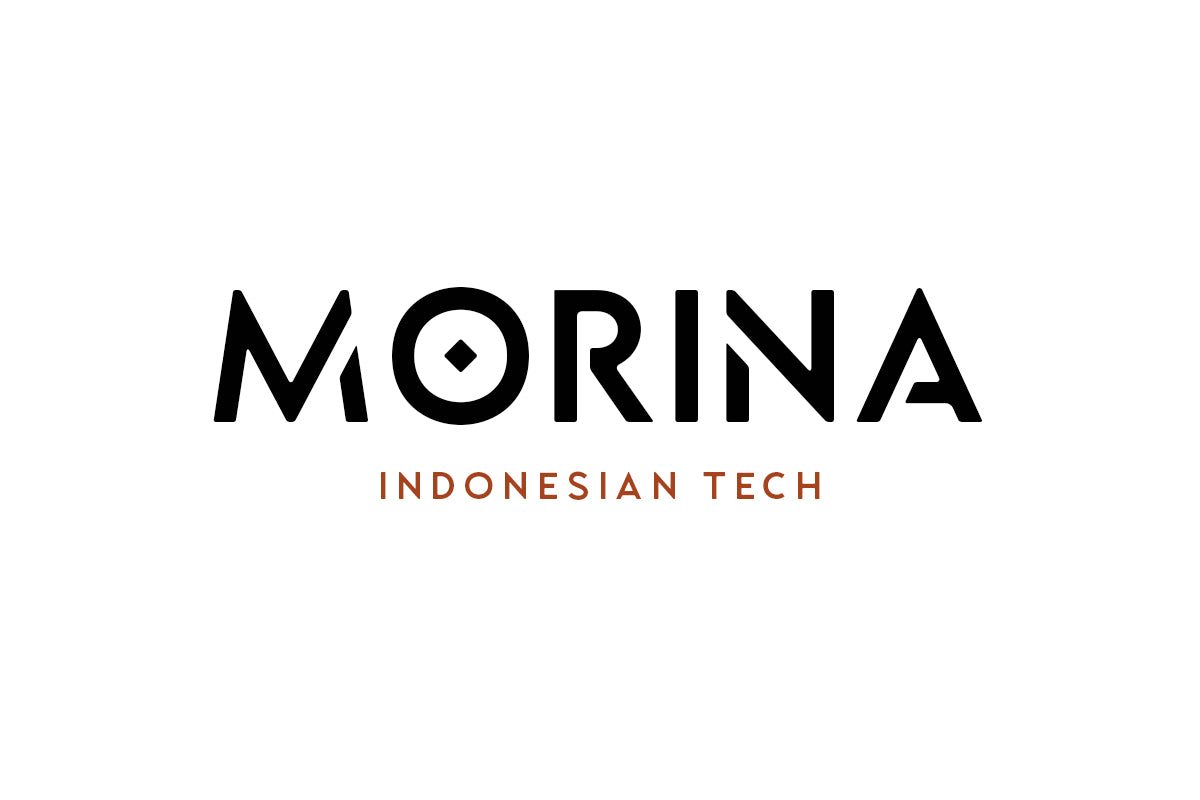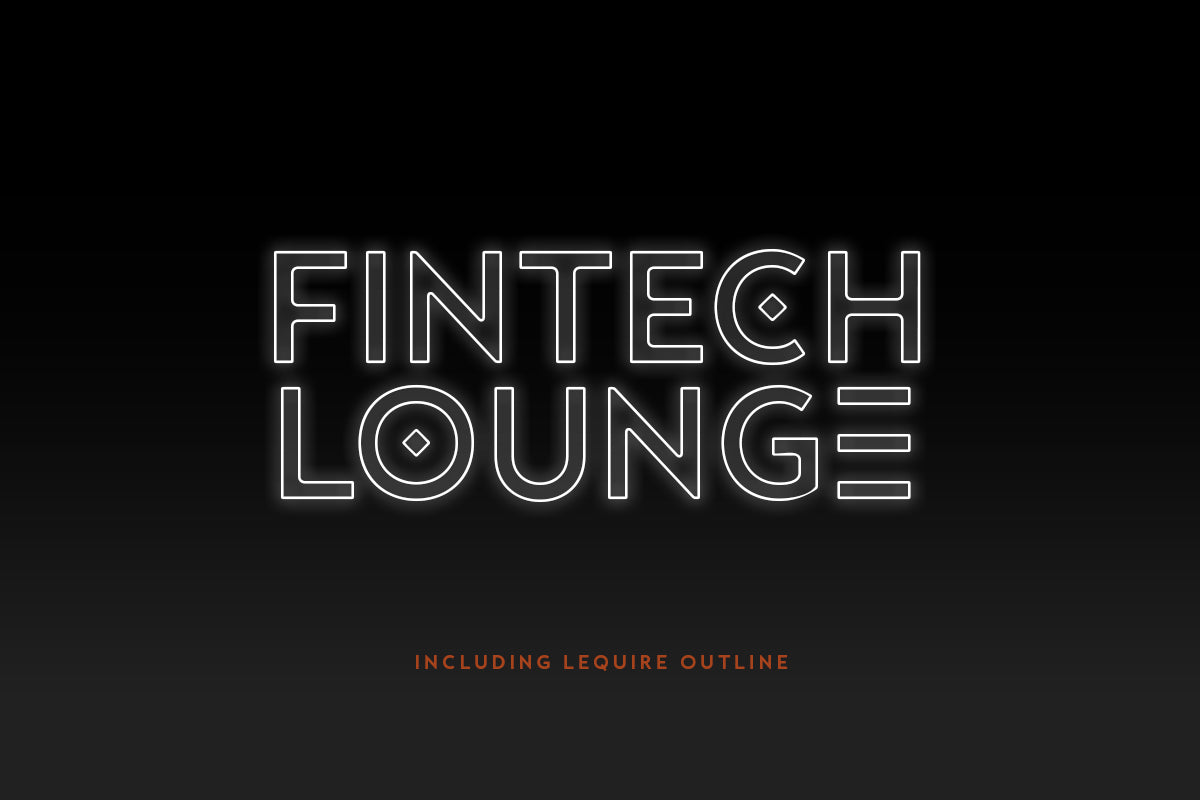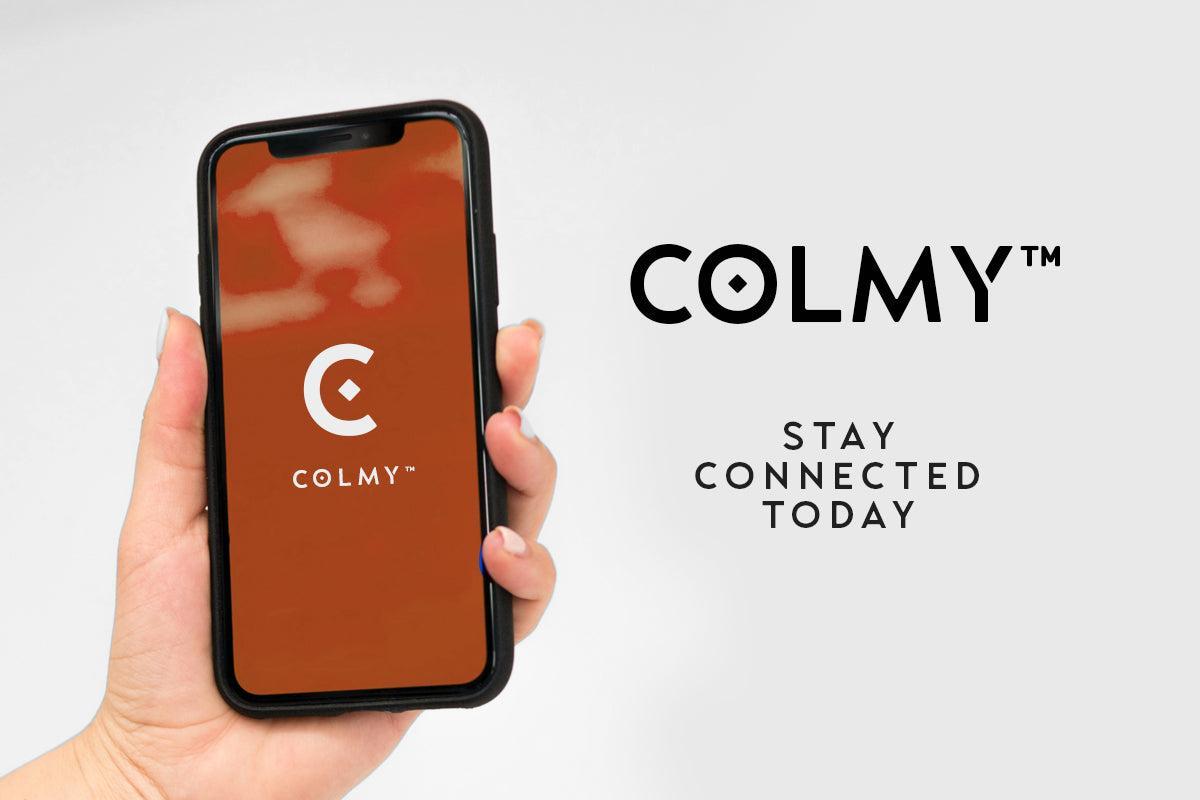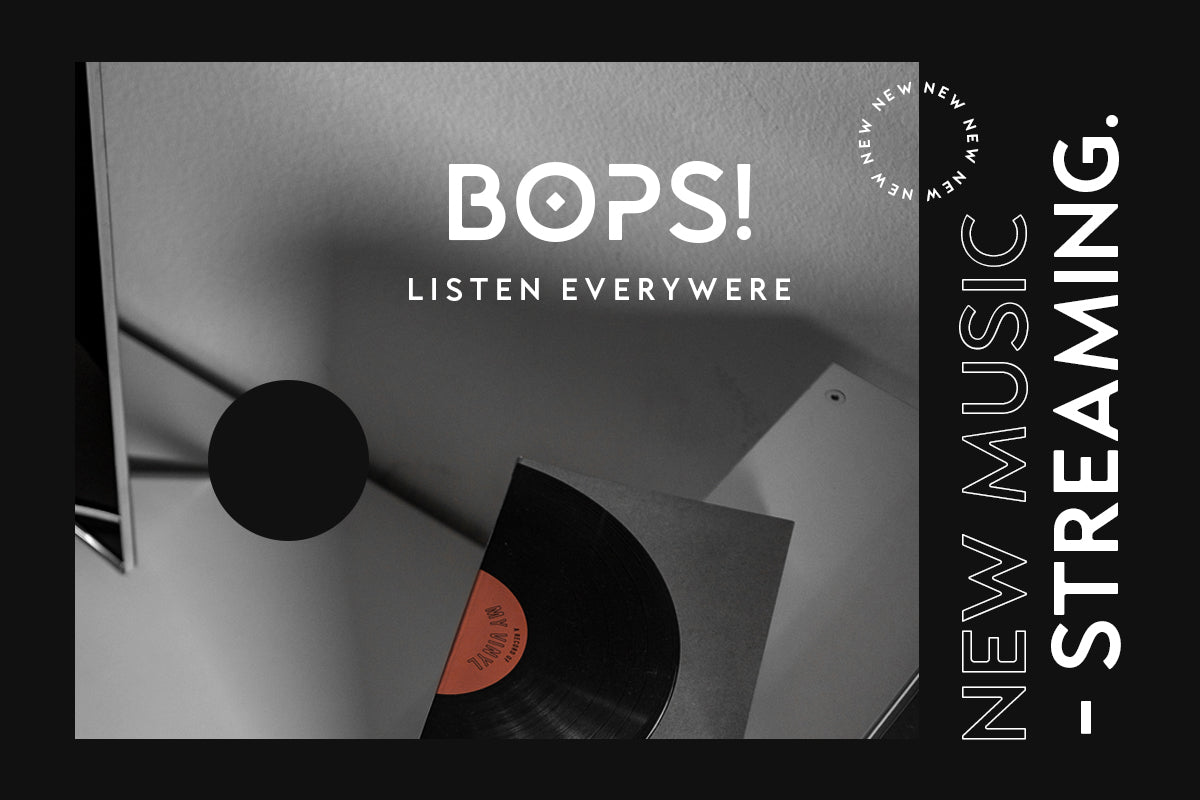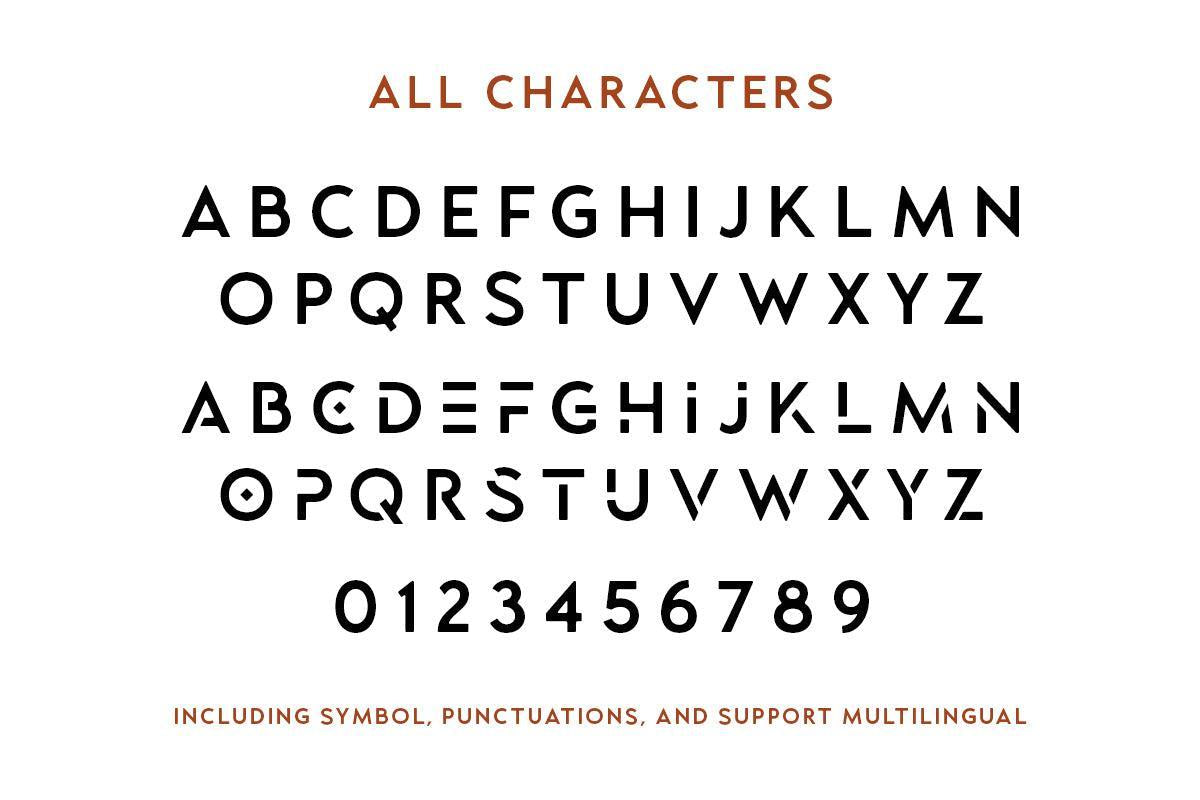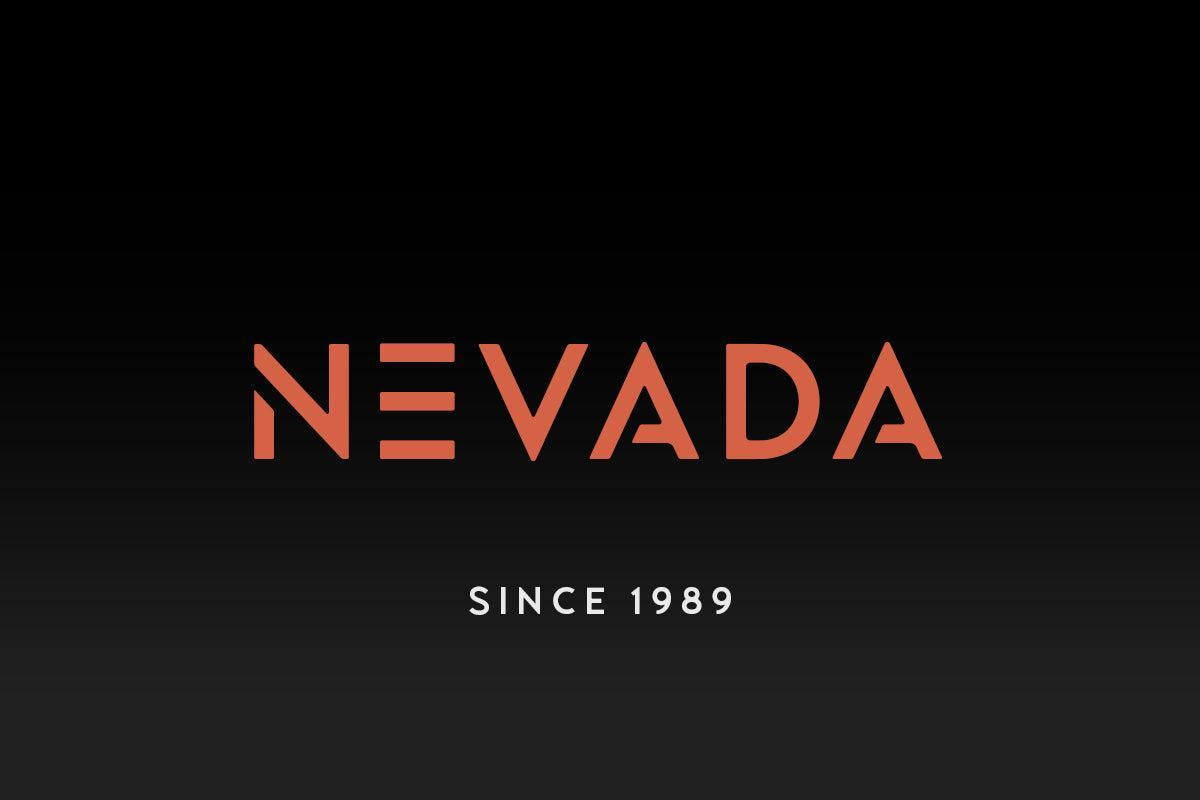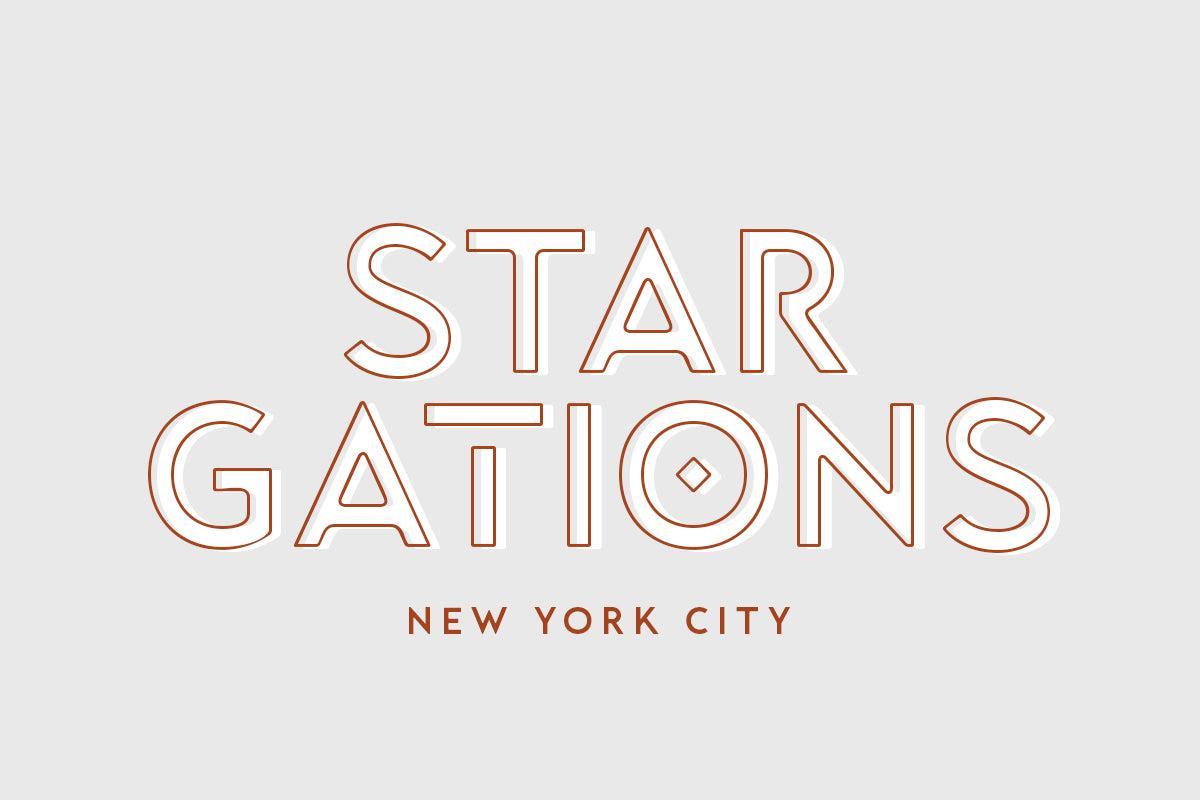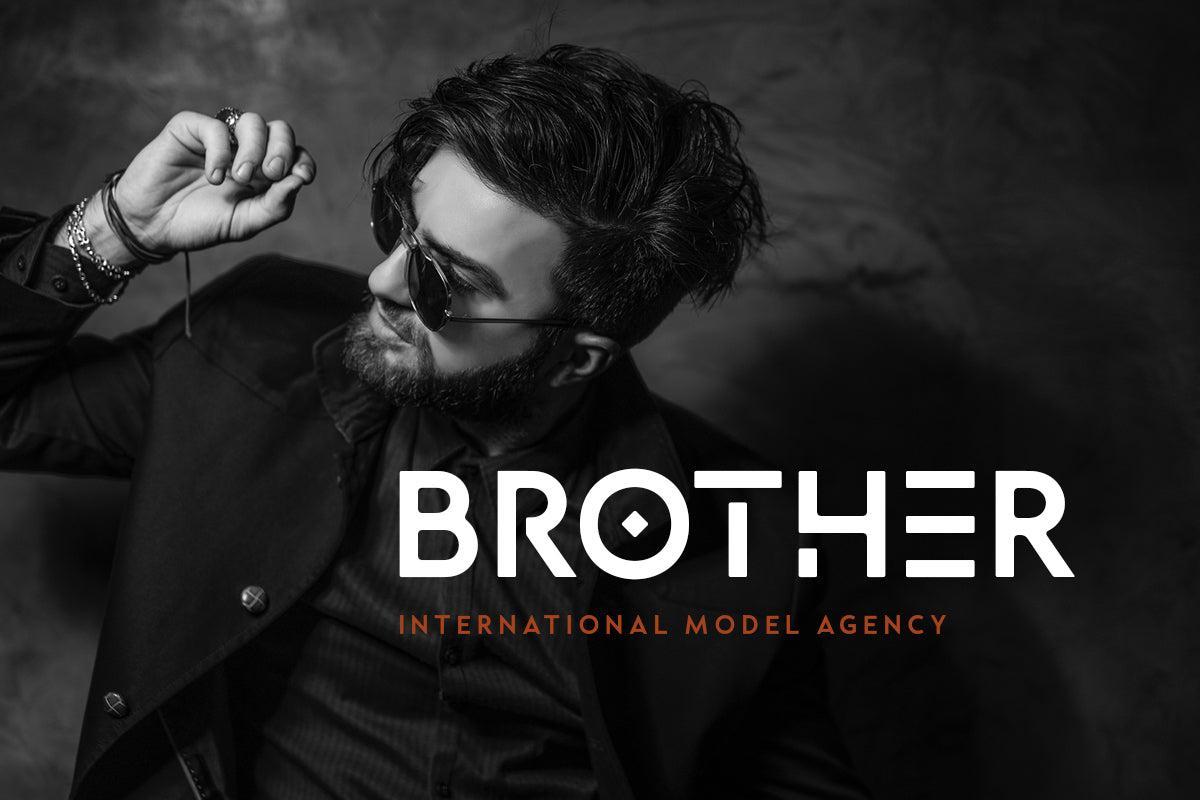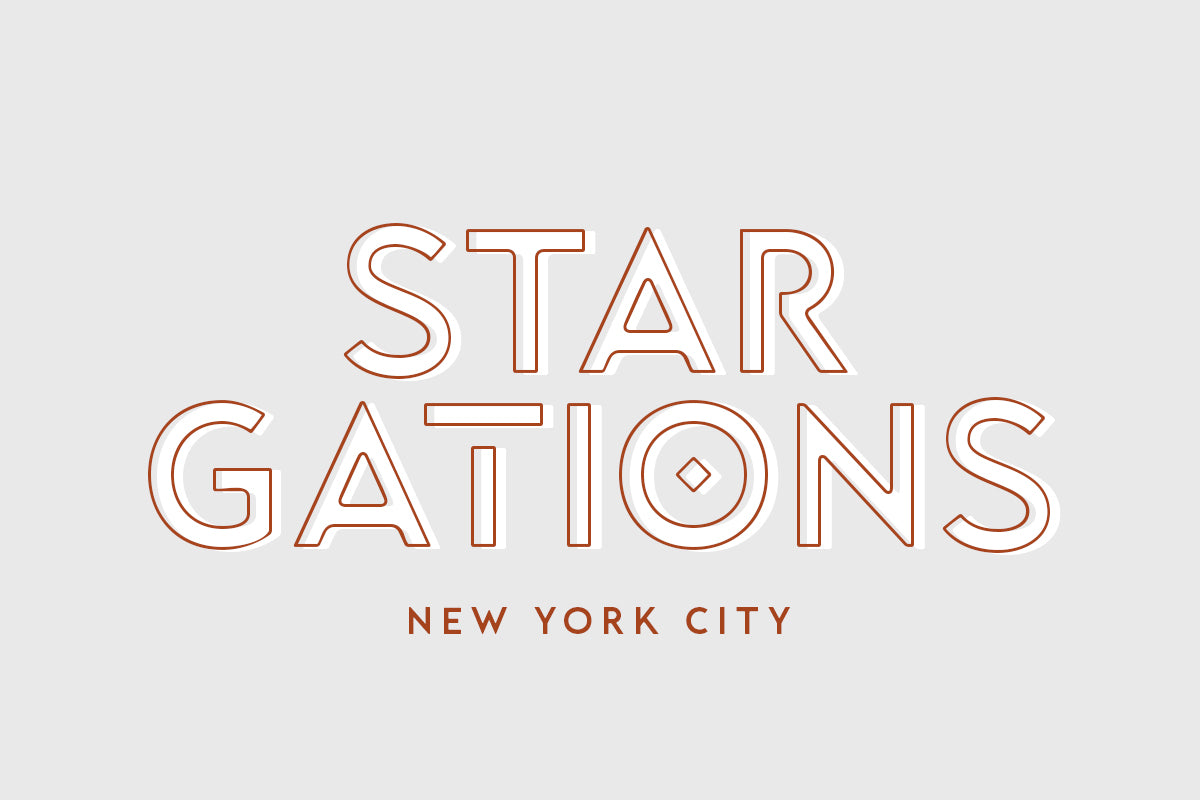
Lequire - Modern Logo Typeface
Lequire is a modern sans-serif typeface featuring a unique lowercase design, ideal for creating logotypes. It includes both uppercase and lowercase letters, as well as an outline style, providing versatility for various design applications.